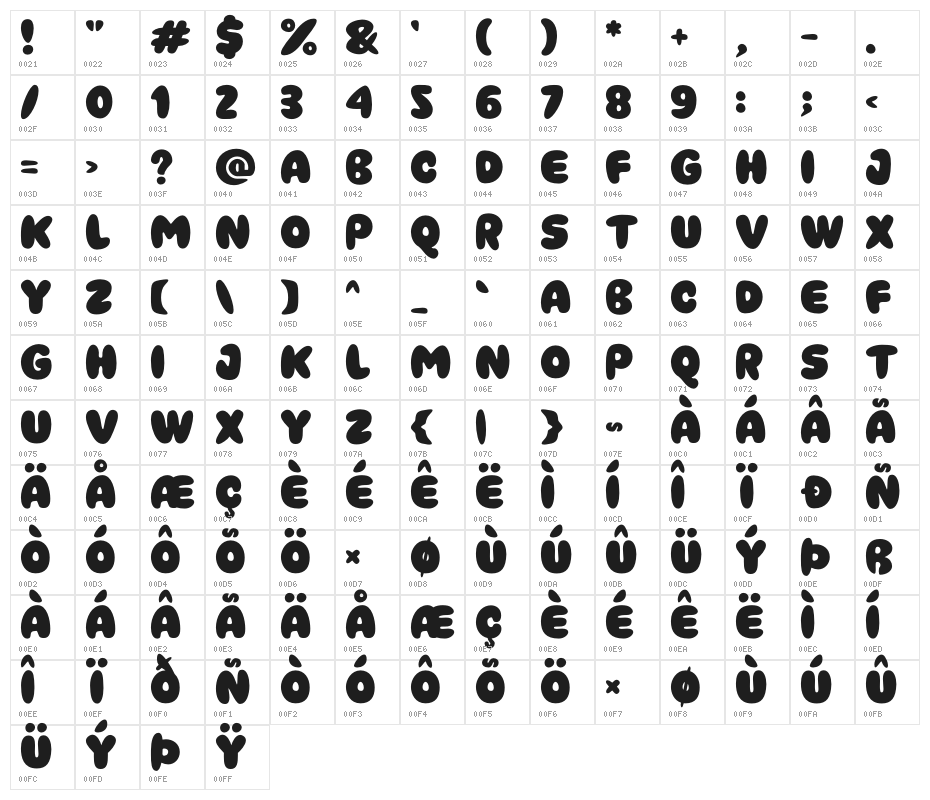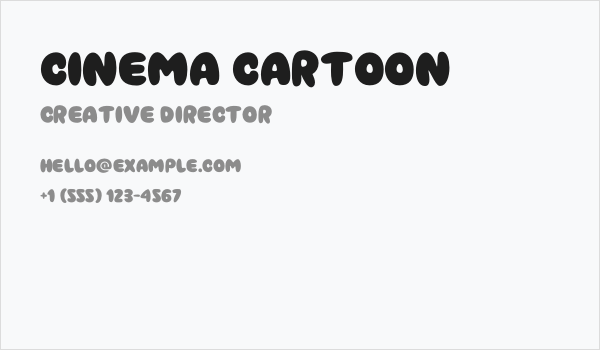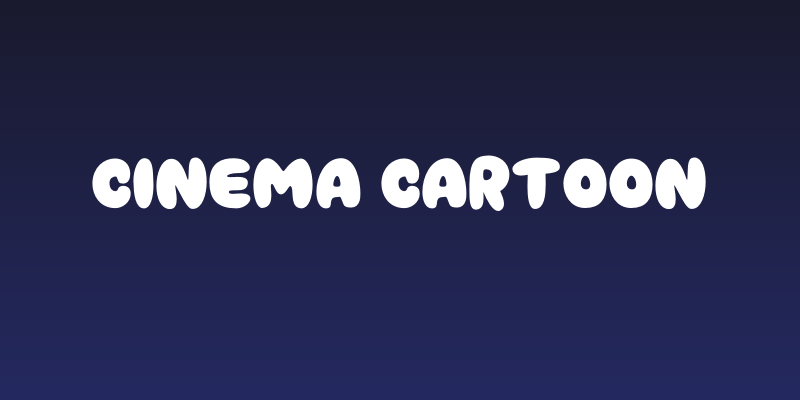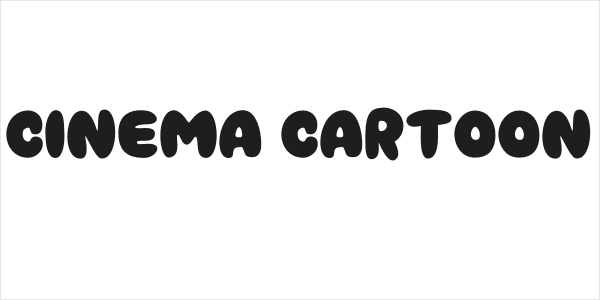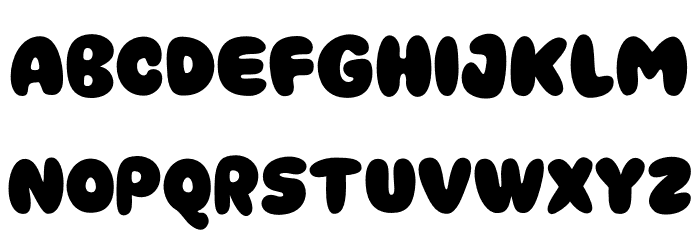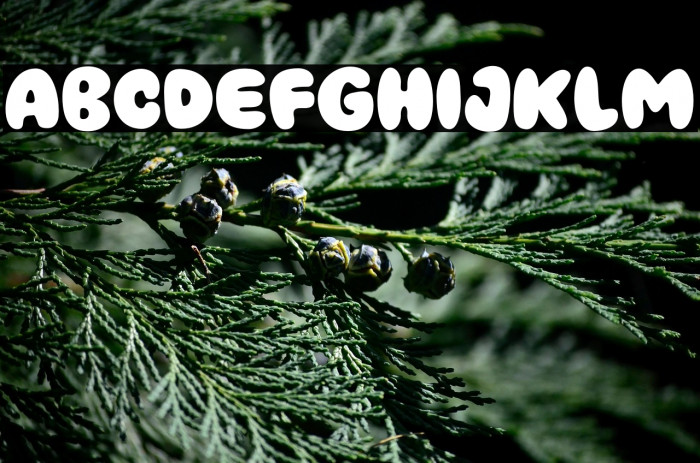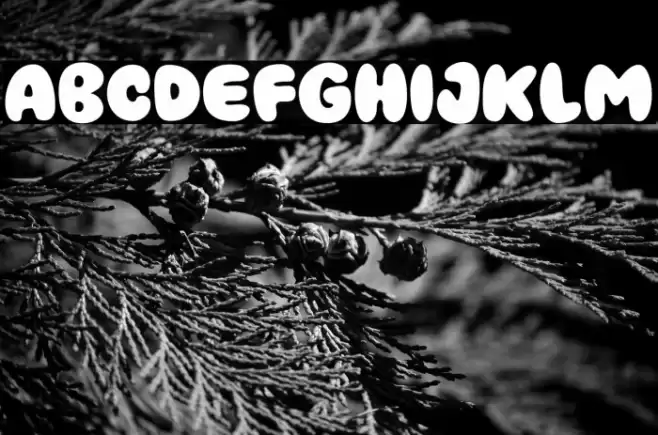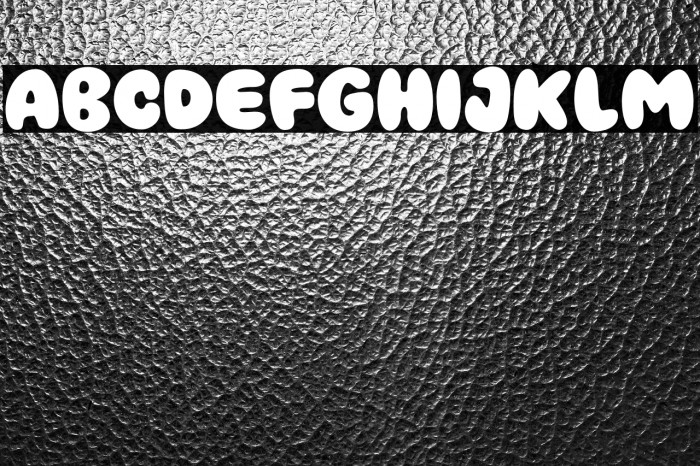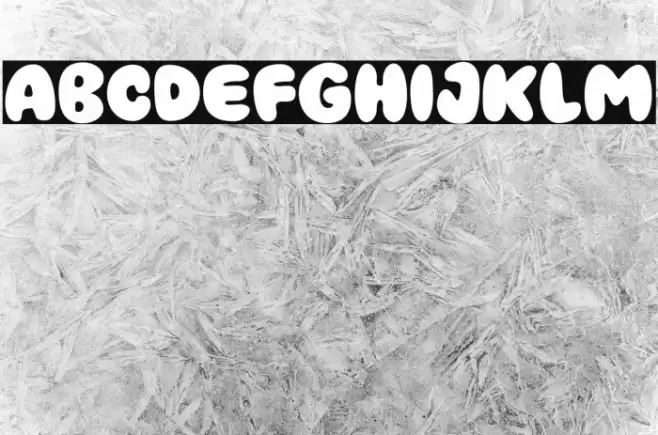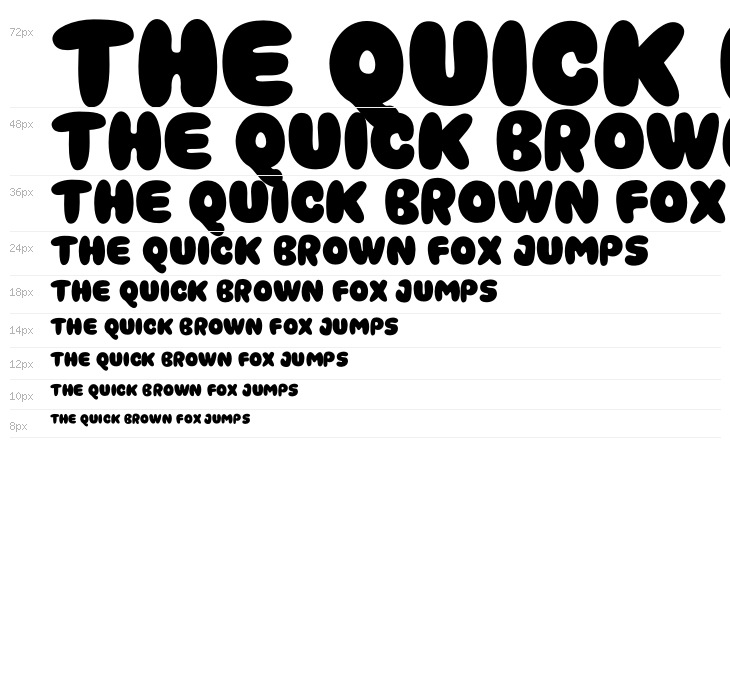
Cinema Cartoon Font
| Style général | Playful, Cartoonish |
| Projets proposés | Ideal for children's books, comic strips, playful branding, party invitations, and any project that benefits from a fun and informal style. |